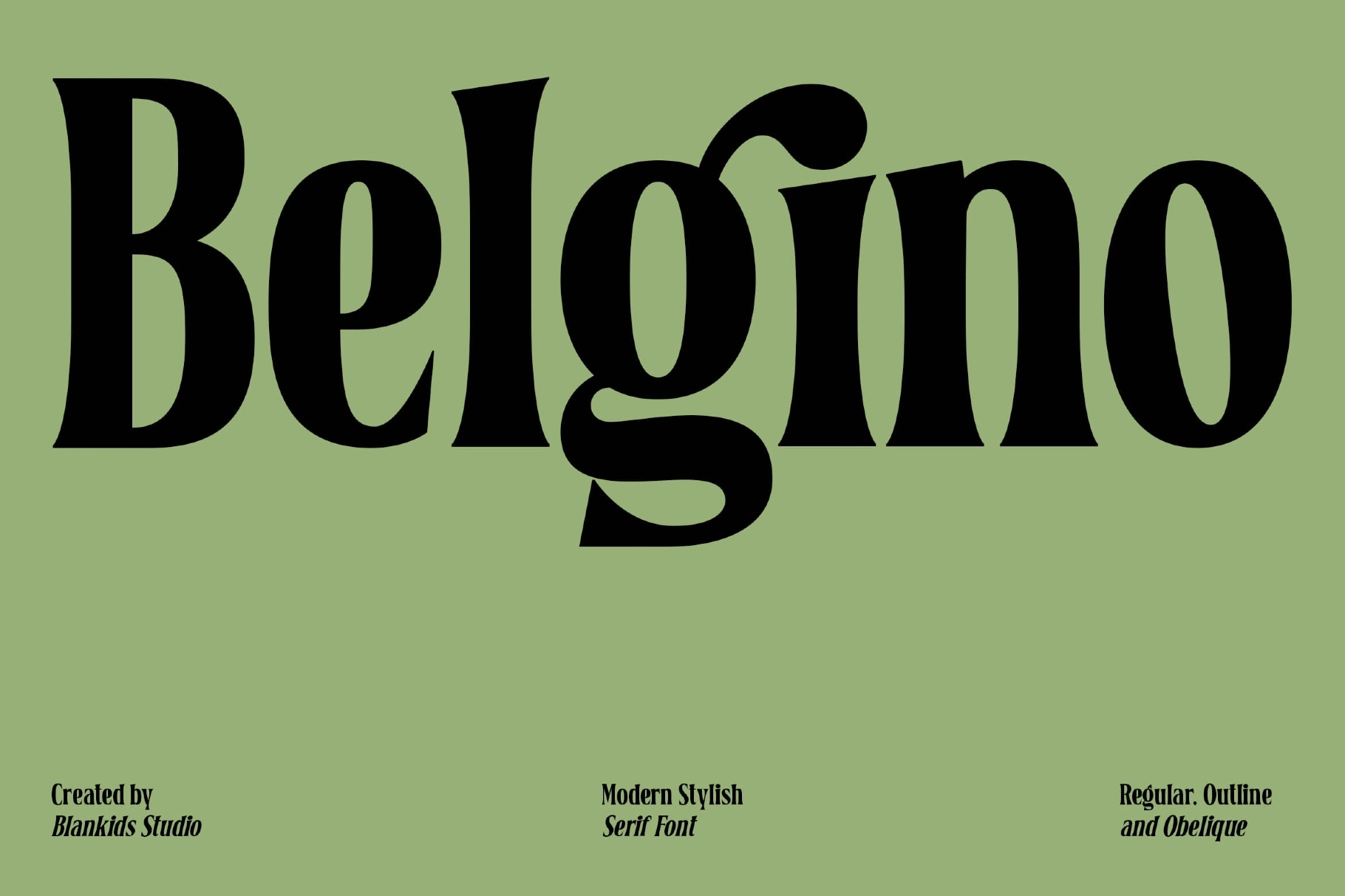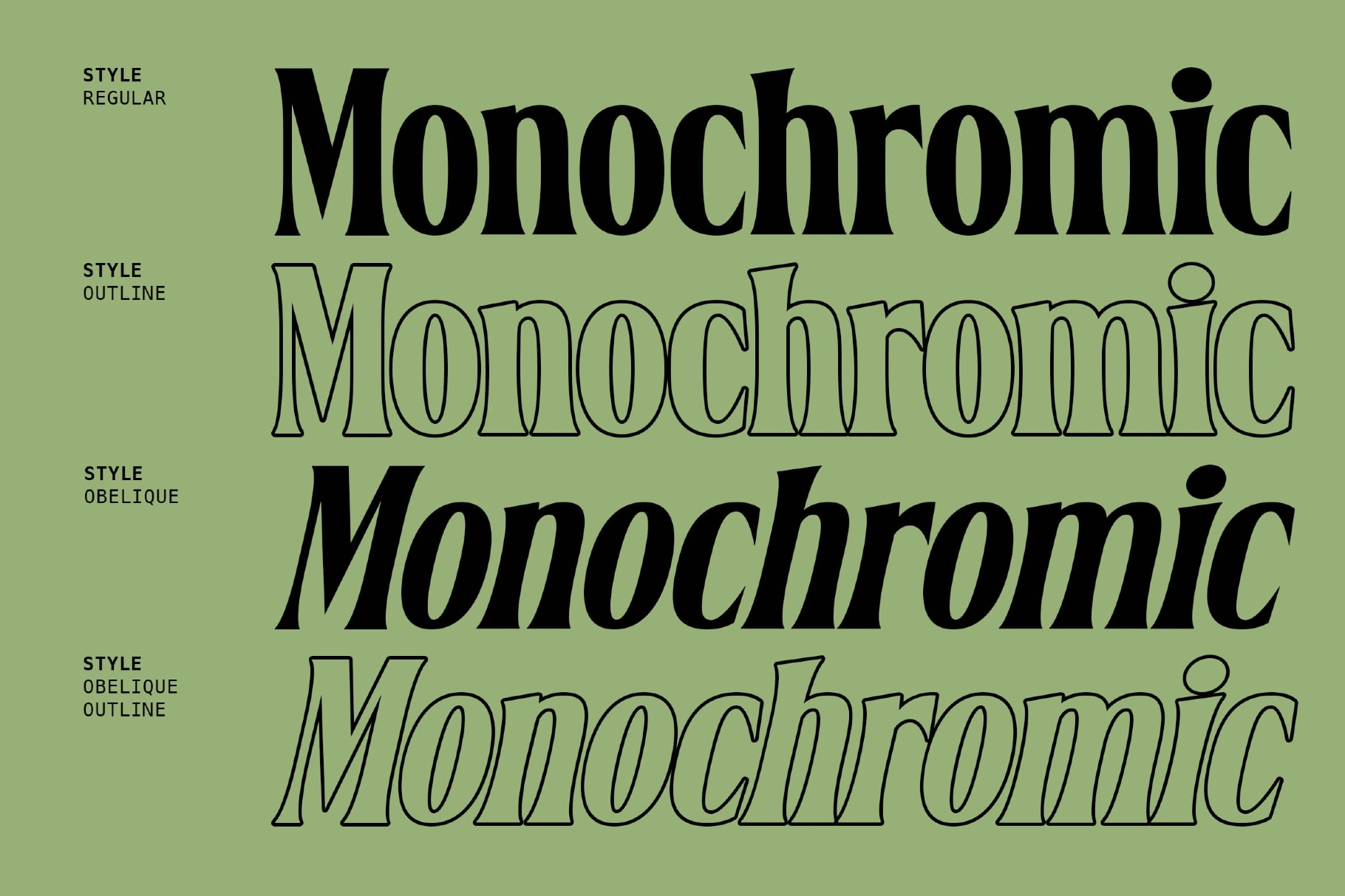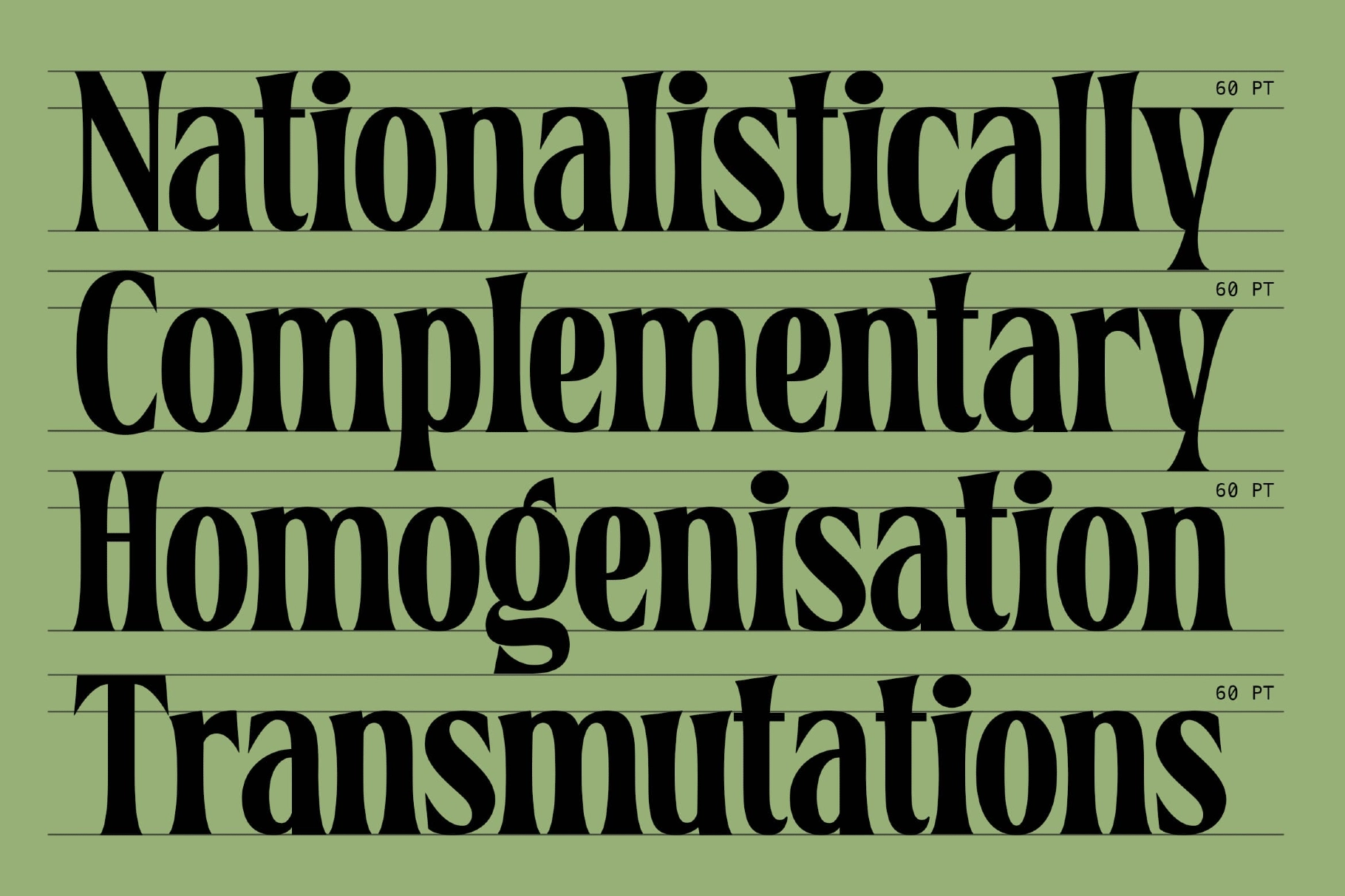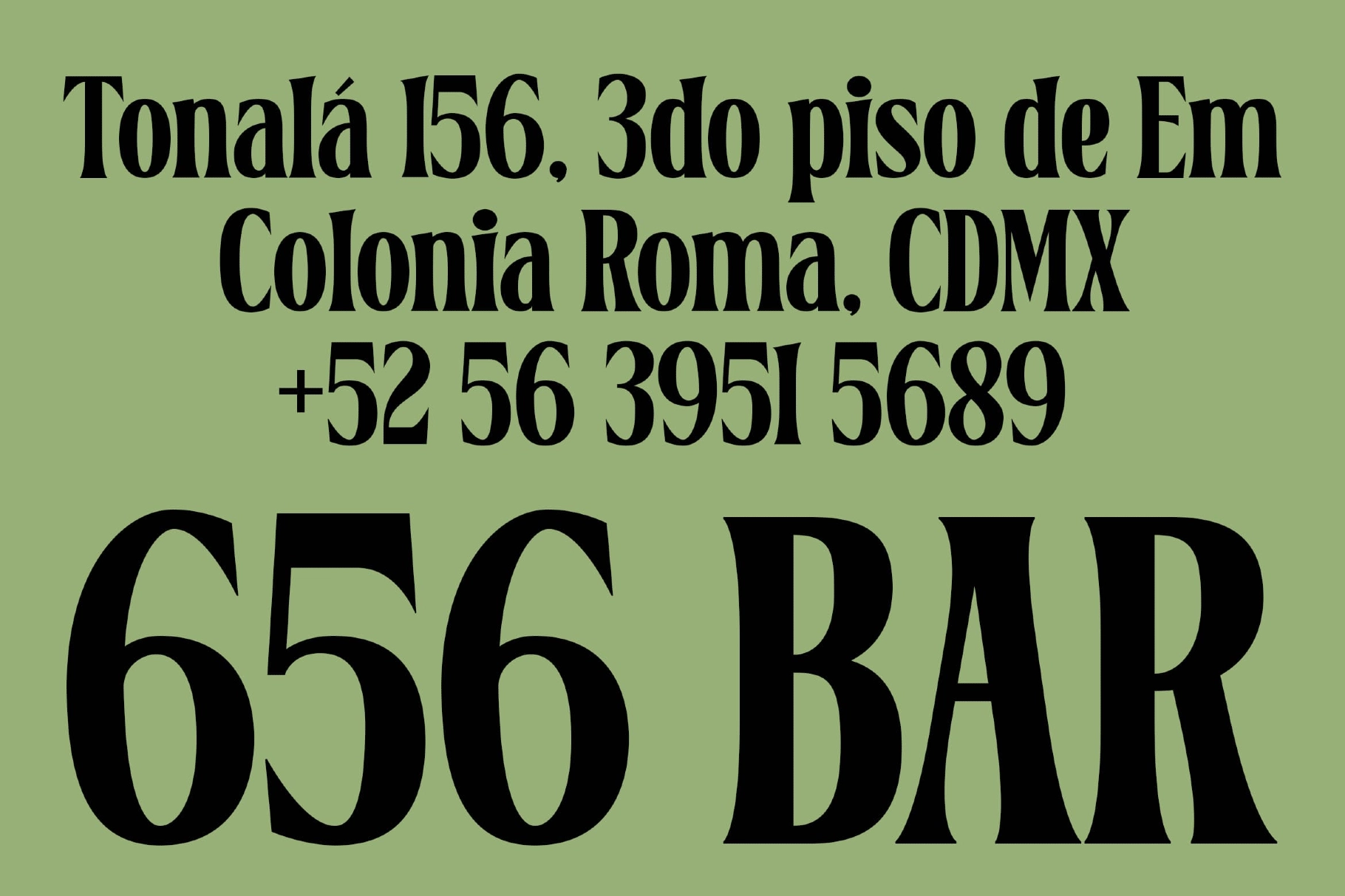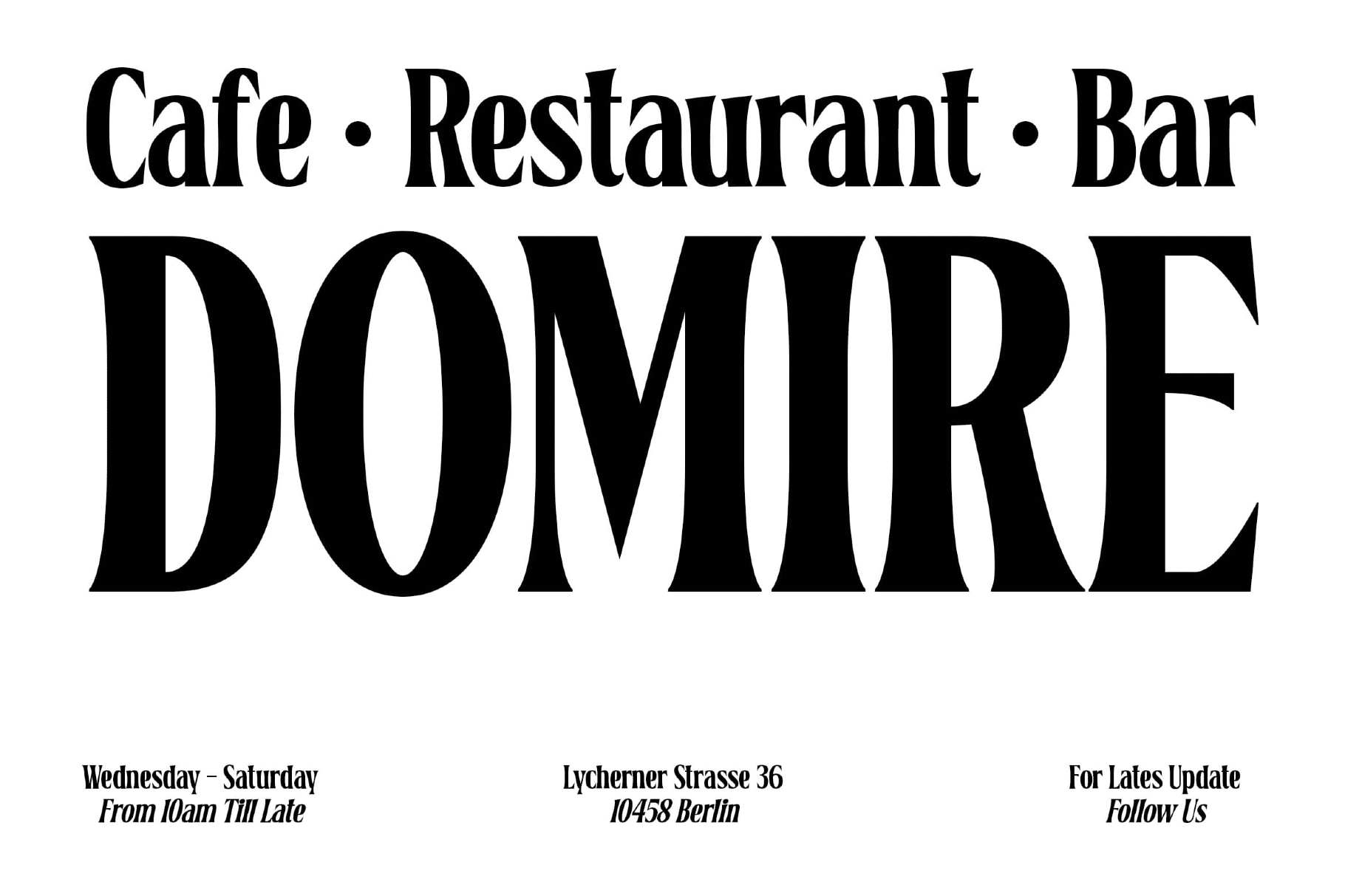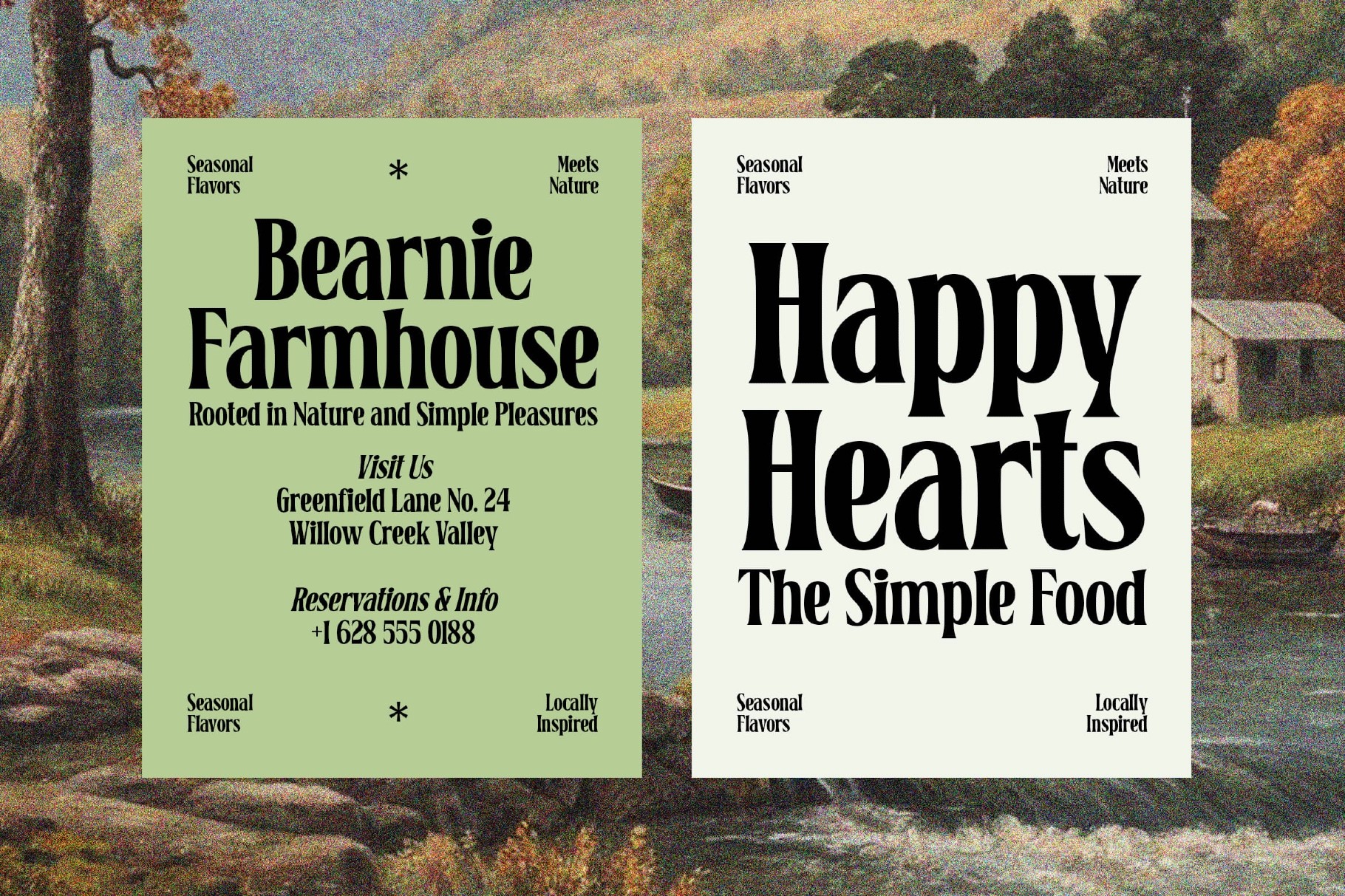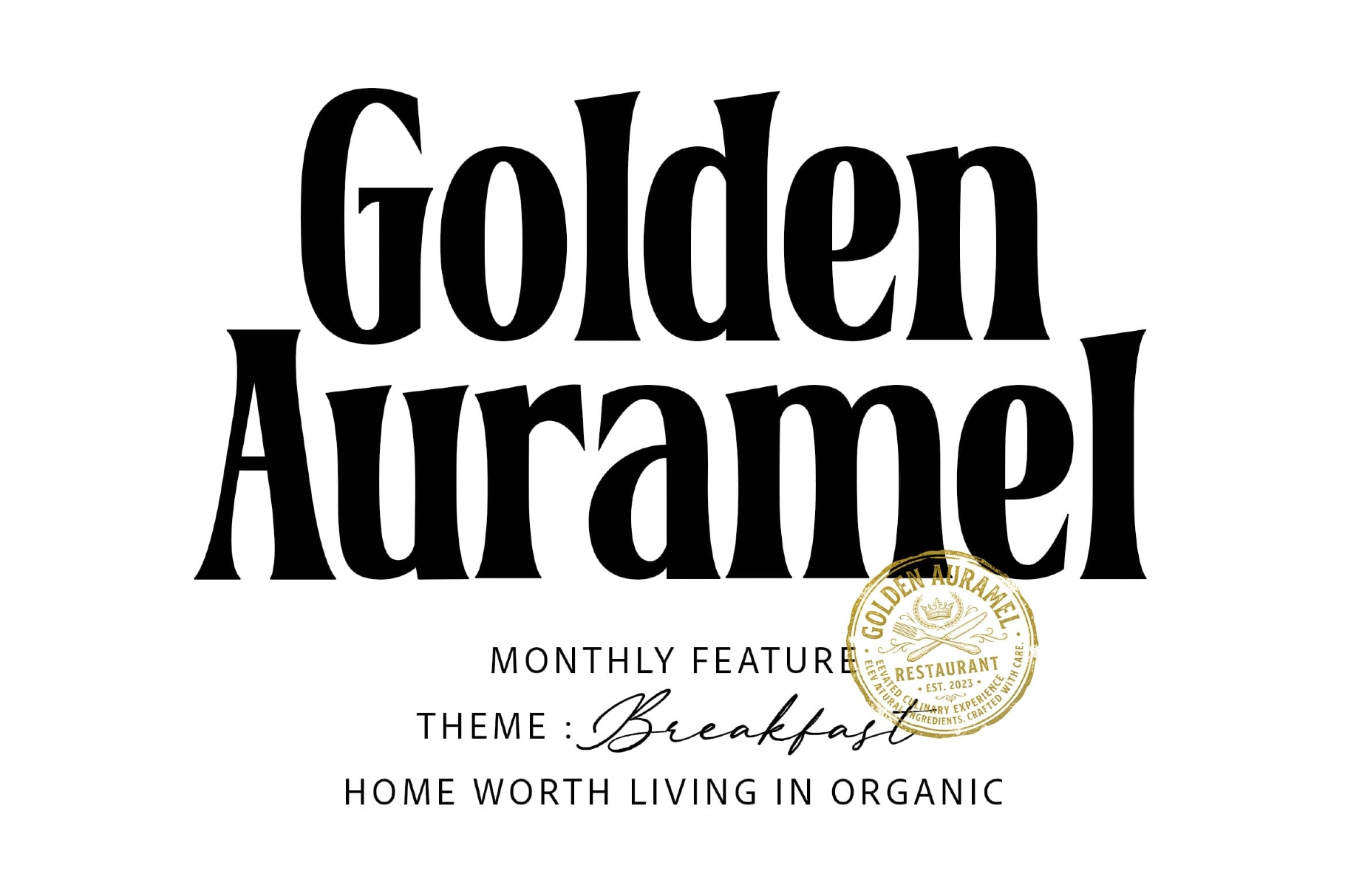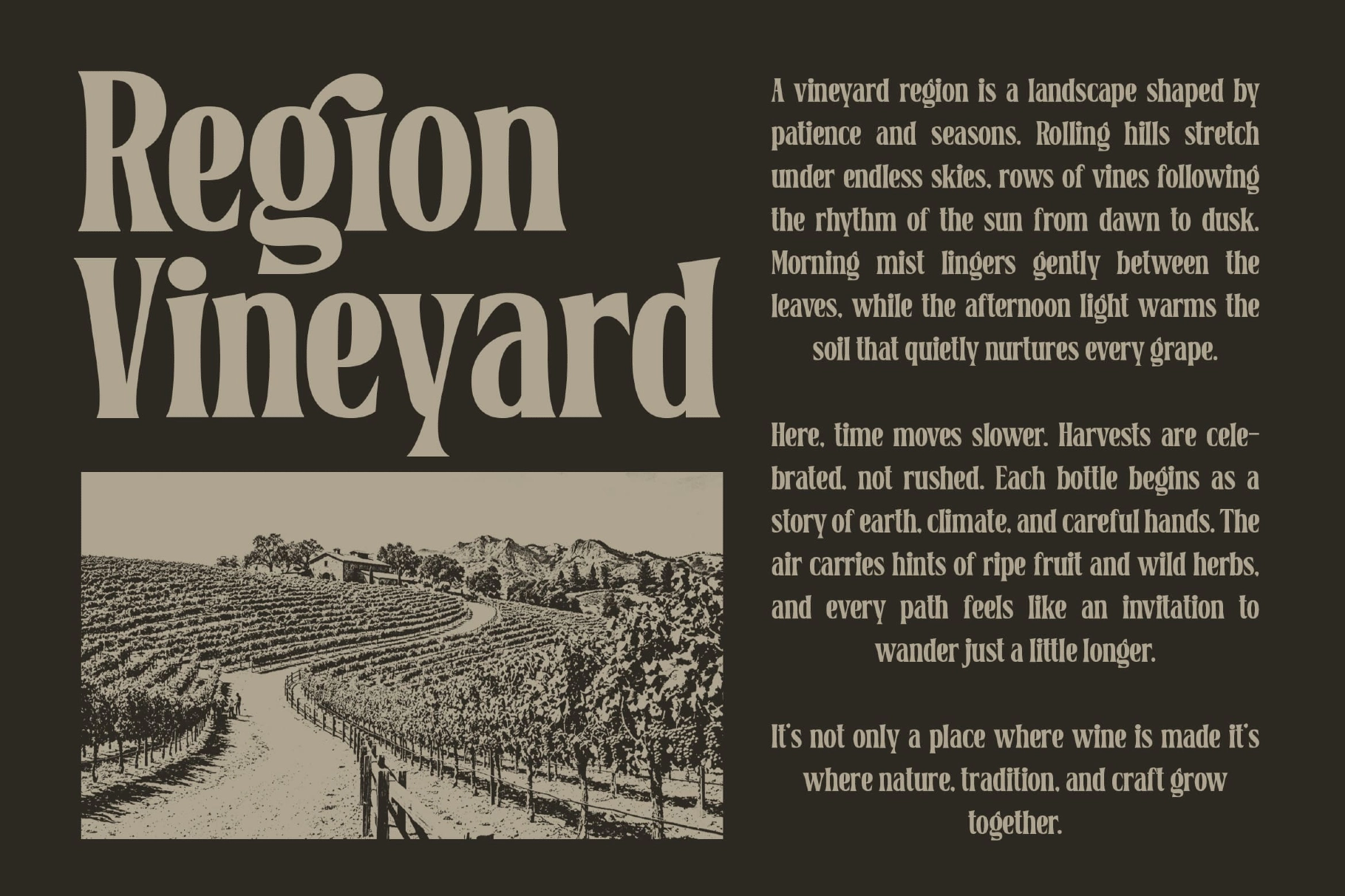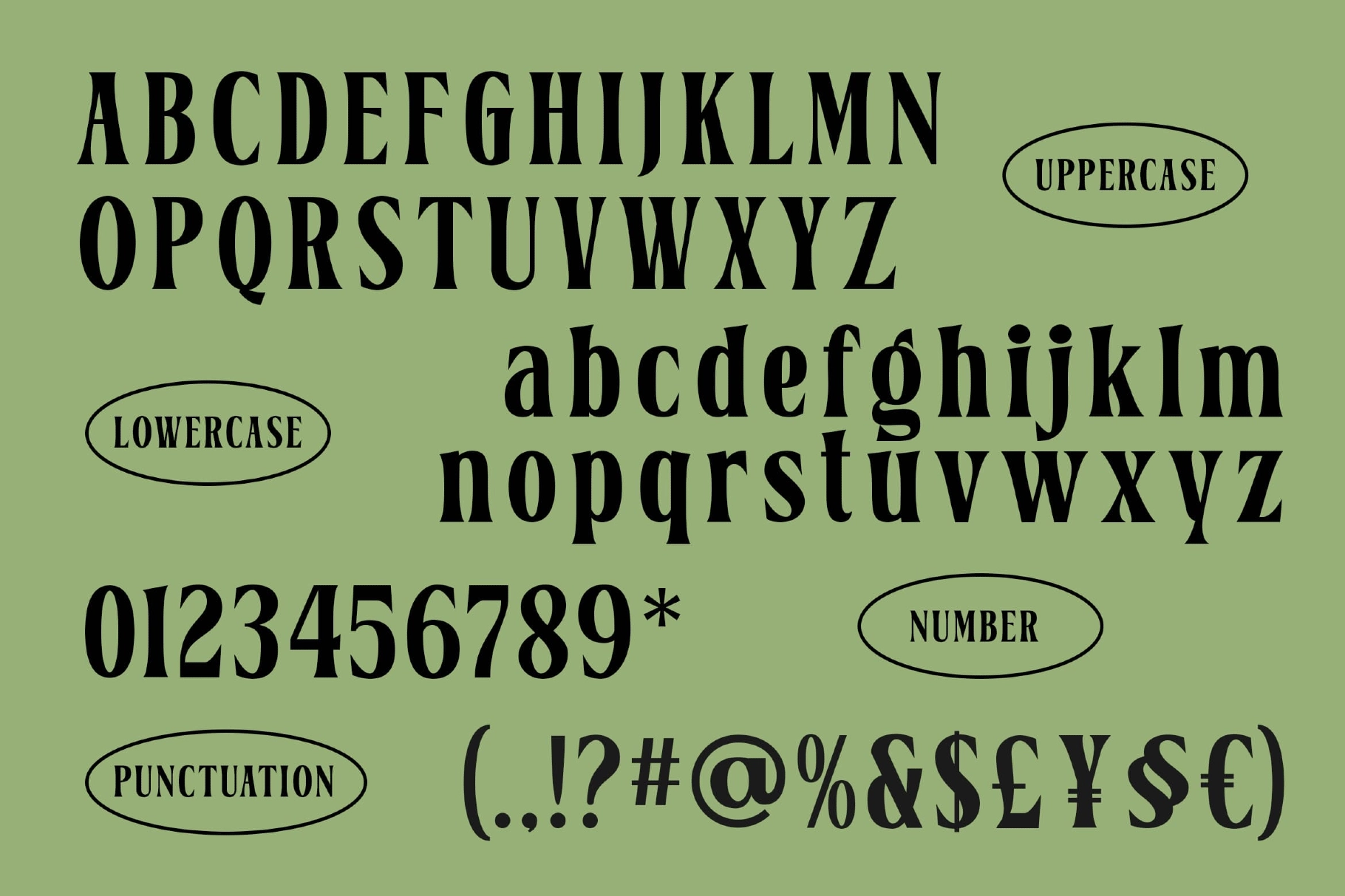
Belgino – Elegant Serif Font
An elegant serif with tall proportions, sharp bracketed details, and bold curves that give headlines a refined, fashion-forward presence. The contrast is high and the shapes are expressive, making the typeface strong for premium branding without losing readability.
Belgino works for logo design, magazine covers, restaurant menus, café branding, bar signage, product labels, perfume packaging, wedding invitations, event posters, website hero titles, social media graphics, boutique identity systems, and more. The outline and oblique styles add room for layered compositions, display typography, and dramatic editorial layouts.
• 4 styles: Regular, Outline, Obelique Outline
• Numerals & Punctuation
• Currency symbols